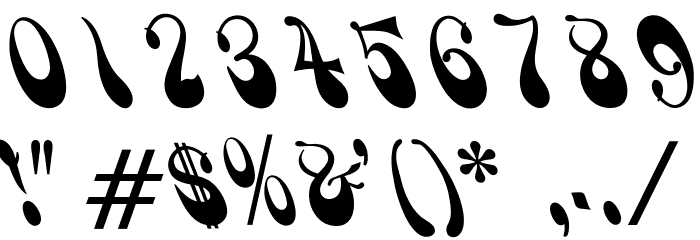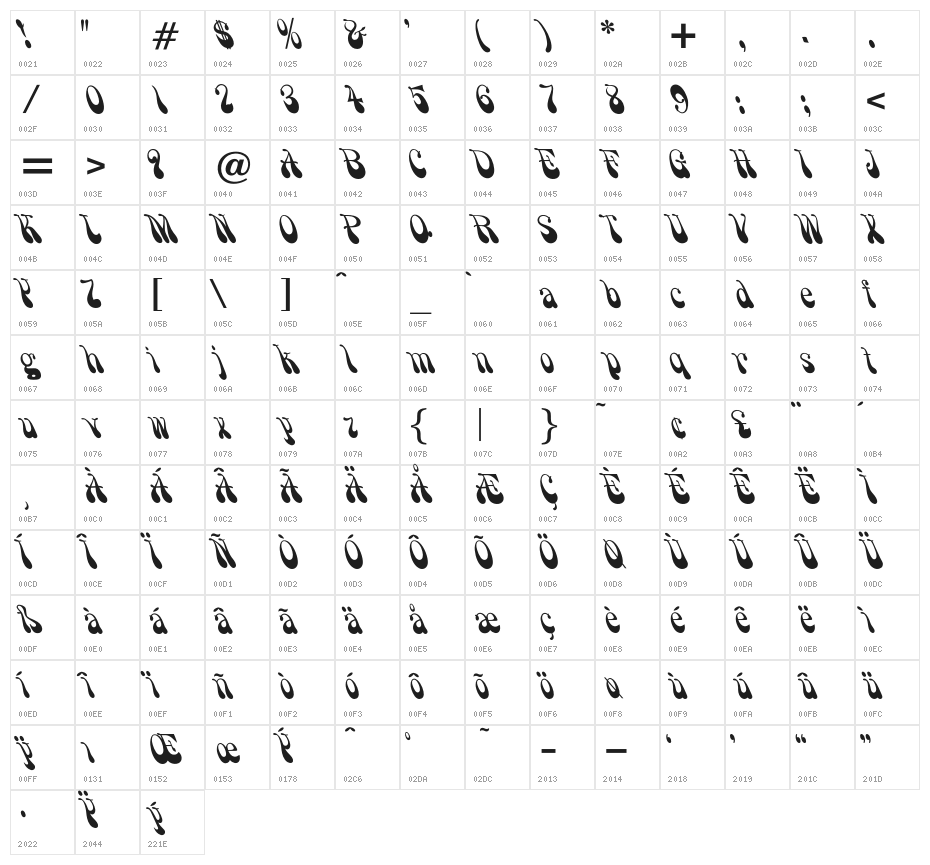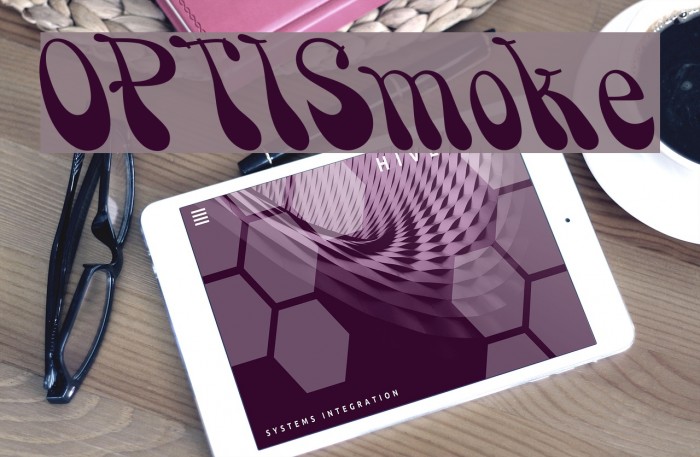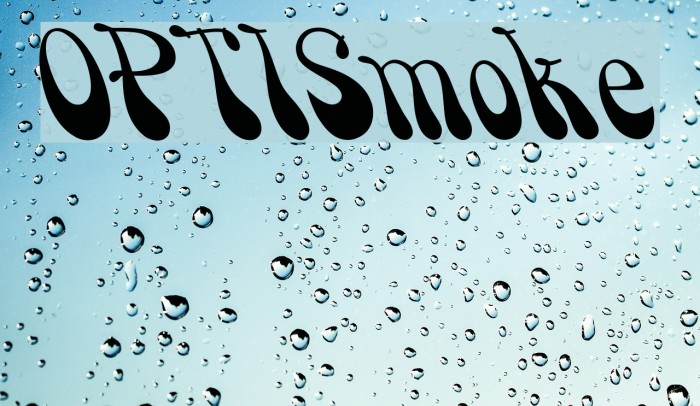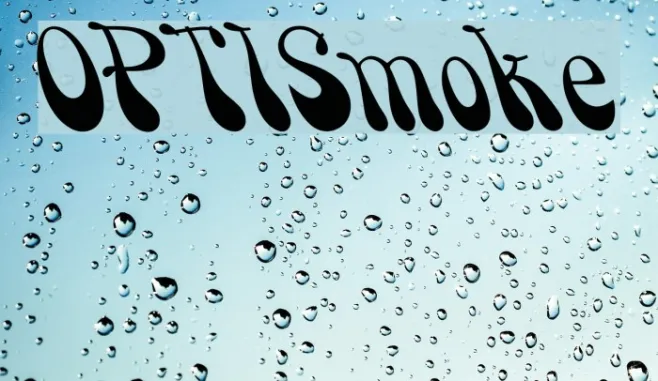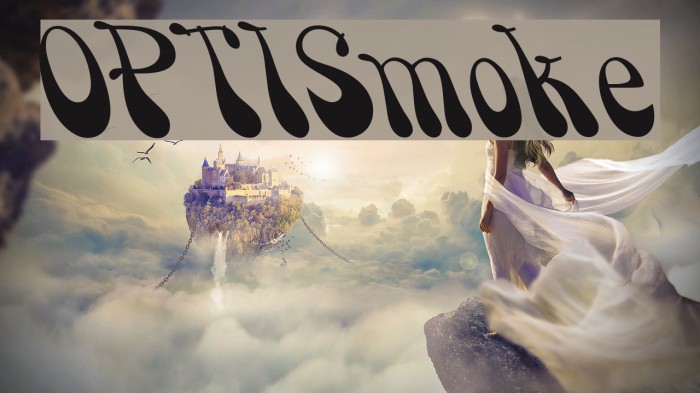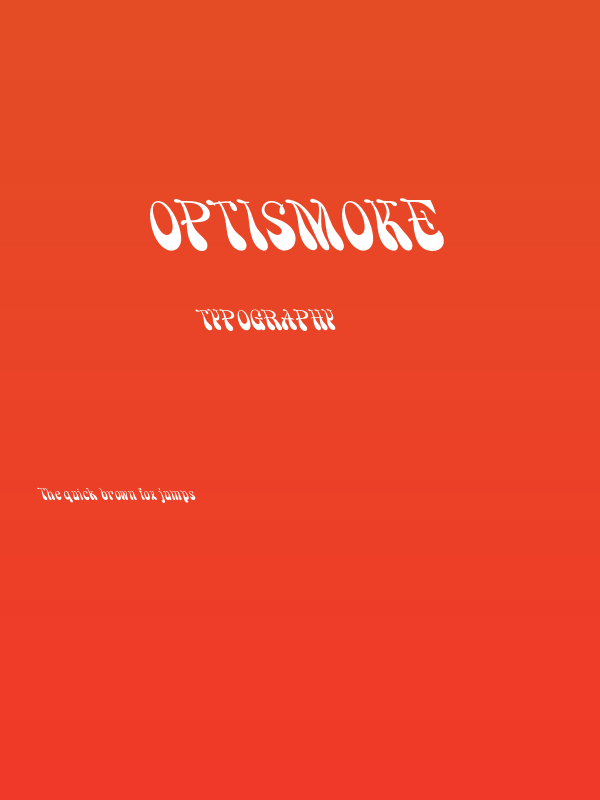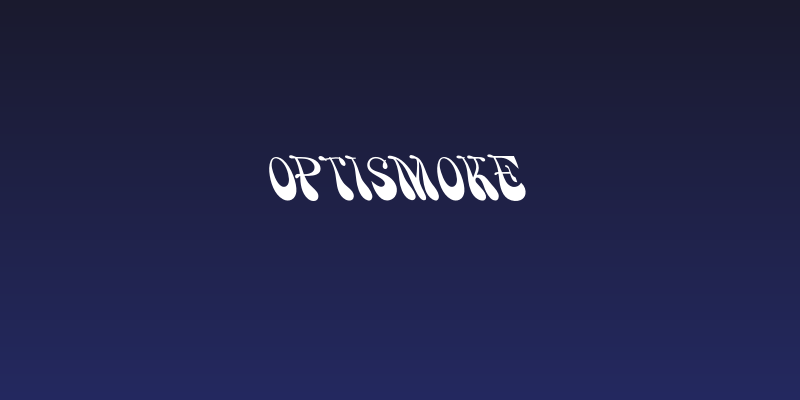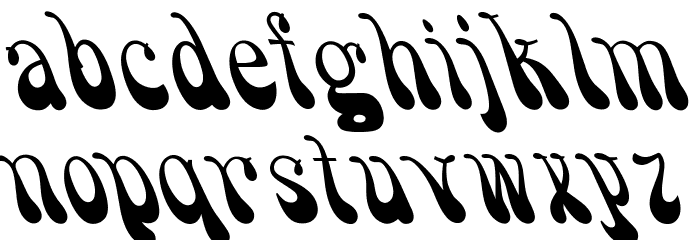
OPTISmoke Font
OPTISmoke Description
This font features a unique and artistic style with a flowing, smoke-like appearance. Each character has a whimsical, fluid form that gives the impression of movement and creativity. The uppercase and lowercase letters maintain a consistent design, with exaggerated curves and playful swirls. The numbers and special characters follow the same aesthetic, ensuring a cohesive look across all text. This font's distinctive style makes it stand out, offering a bold and imaginative option for creative projects.
| Proposed Projects | Ideal for creative projects such as posters, album covers, branding for artistic ventures, or any design requiring a bold, imaginative touch. |